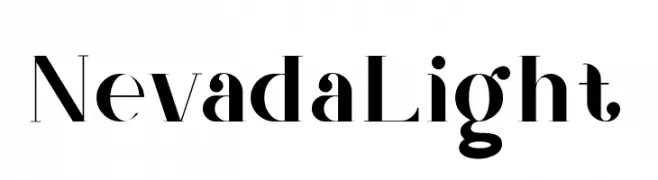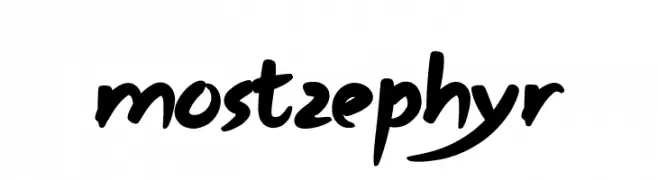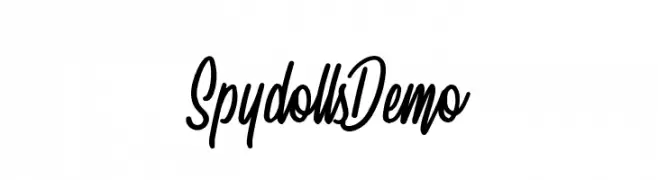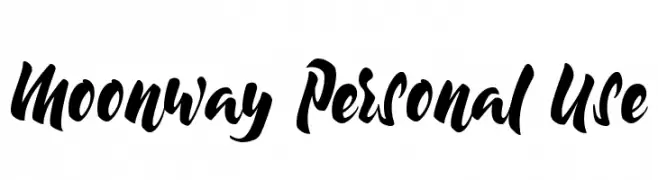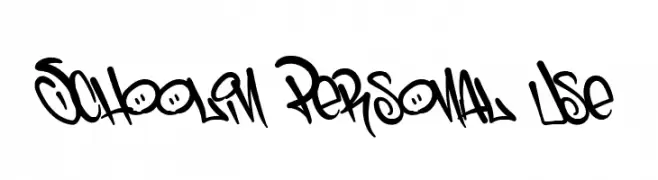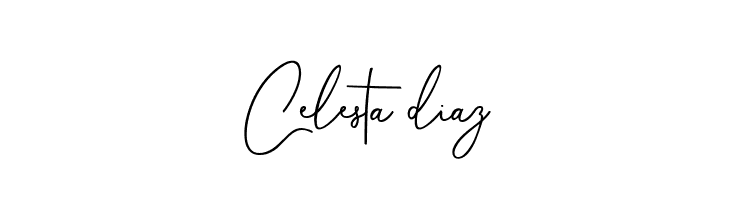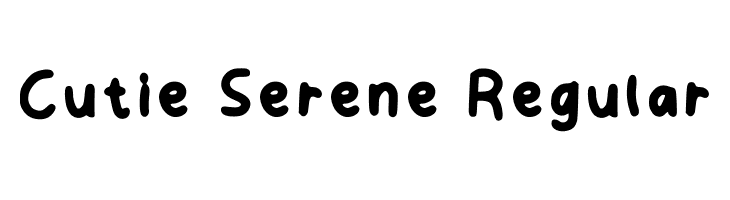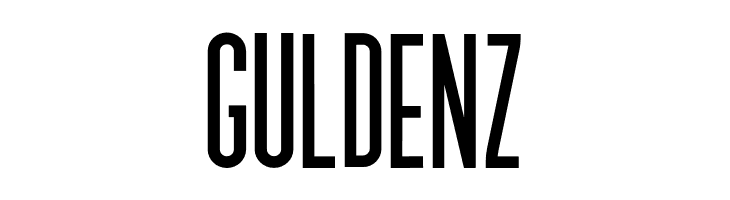
A dynamic and elegant script font with a flowing, handwritten style.
A modern, elegant font with high contrast and distinctive serifs.
A whimsical, handwritten font with dynamic, uneven strokes.
A bold, flowing script font with dynamic curves and a playful yet sophisticated style.
A lively and energetic script font with fluid, connected letterforms.
A bold, expressive handwritten font with dynamic, fluid characters.
A flowing, cursive script font with an elegant, handwritten style.
A dynamic graffiti-style font with bold, sweeping strokes and an urban flair.
A bold, brush-style font with dynamic strokes and a hand-drawn feel.
A graffiti-inspired font with a dripping effect and bold, cursive-like characters.